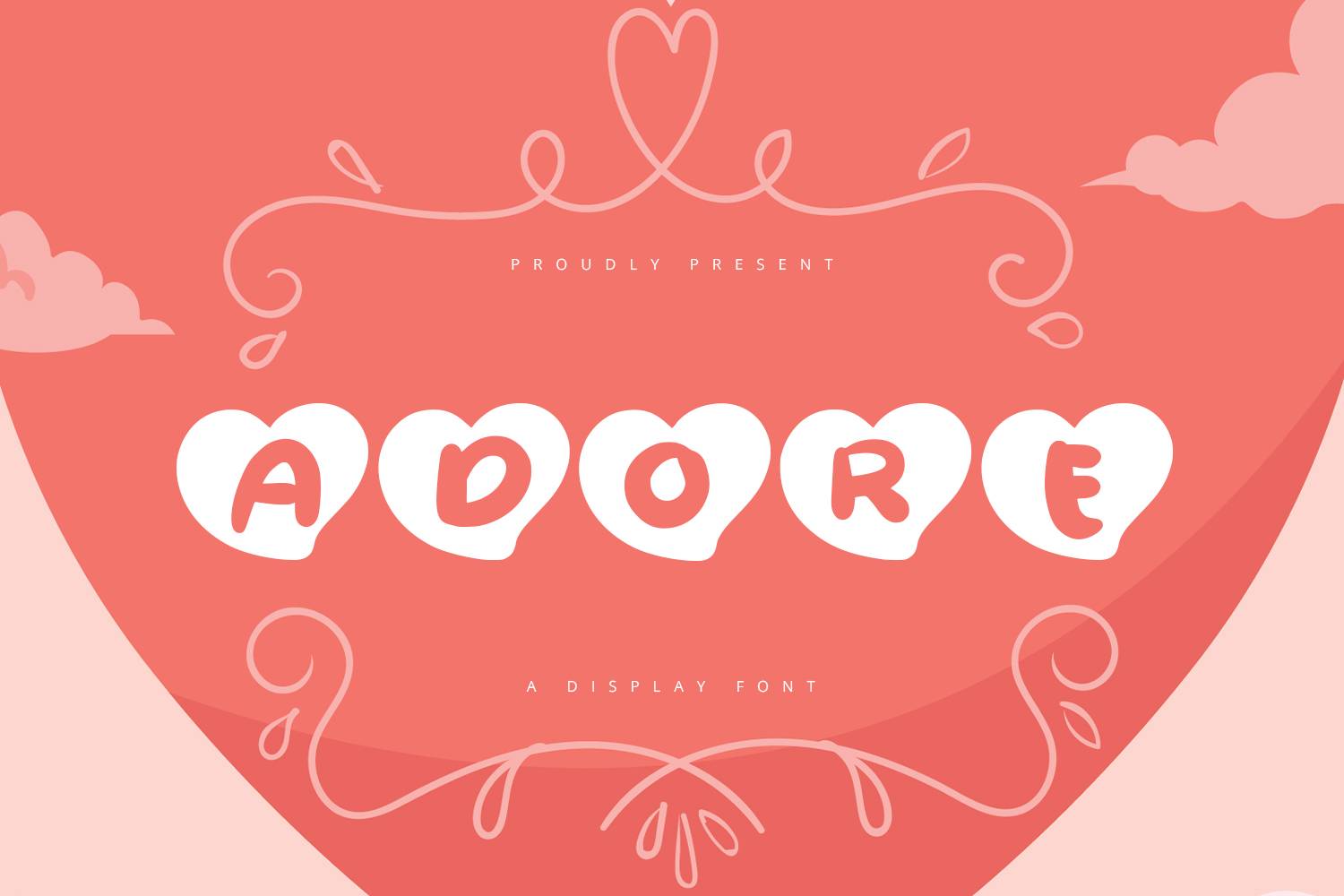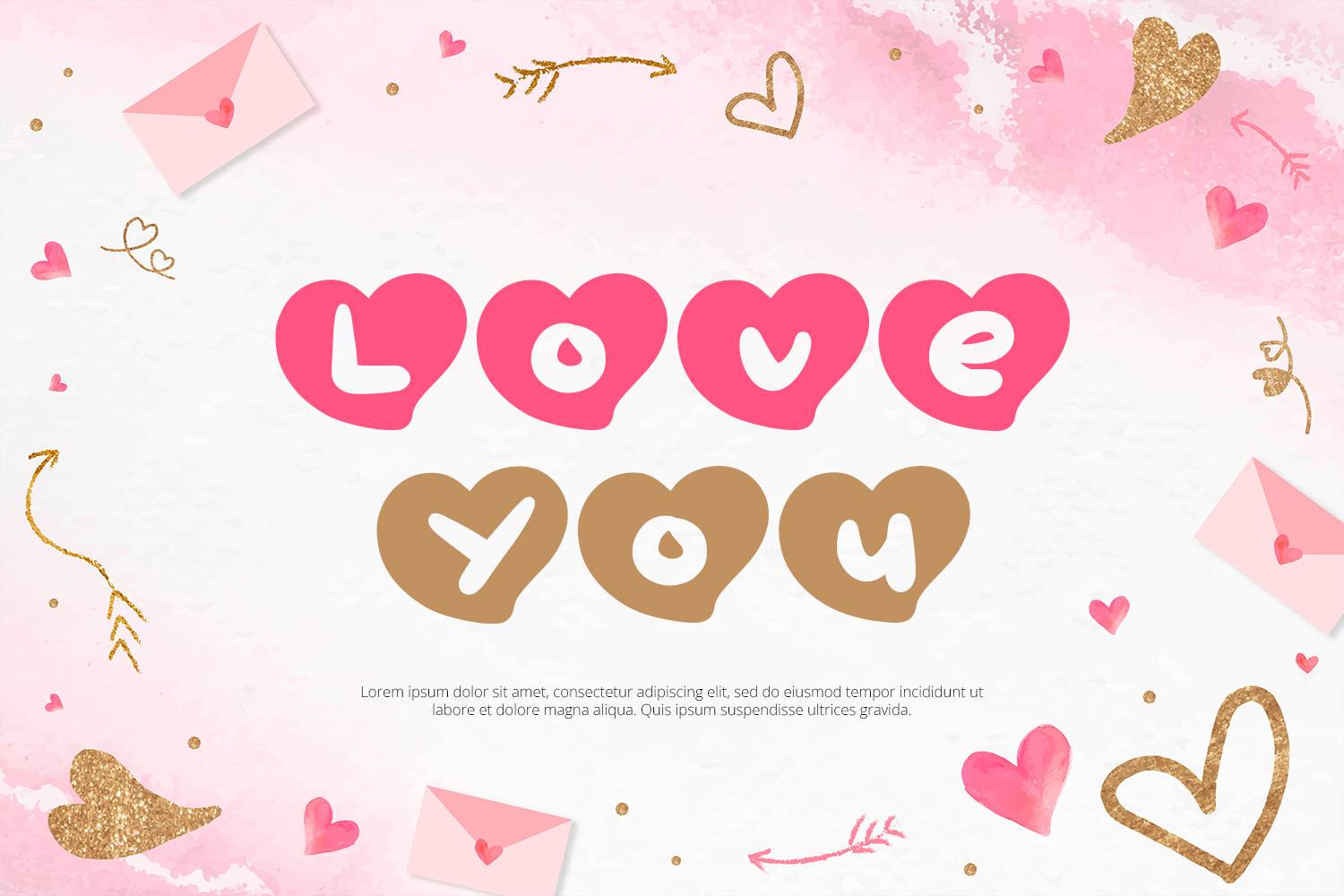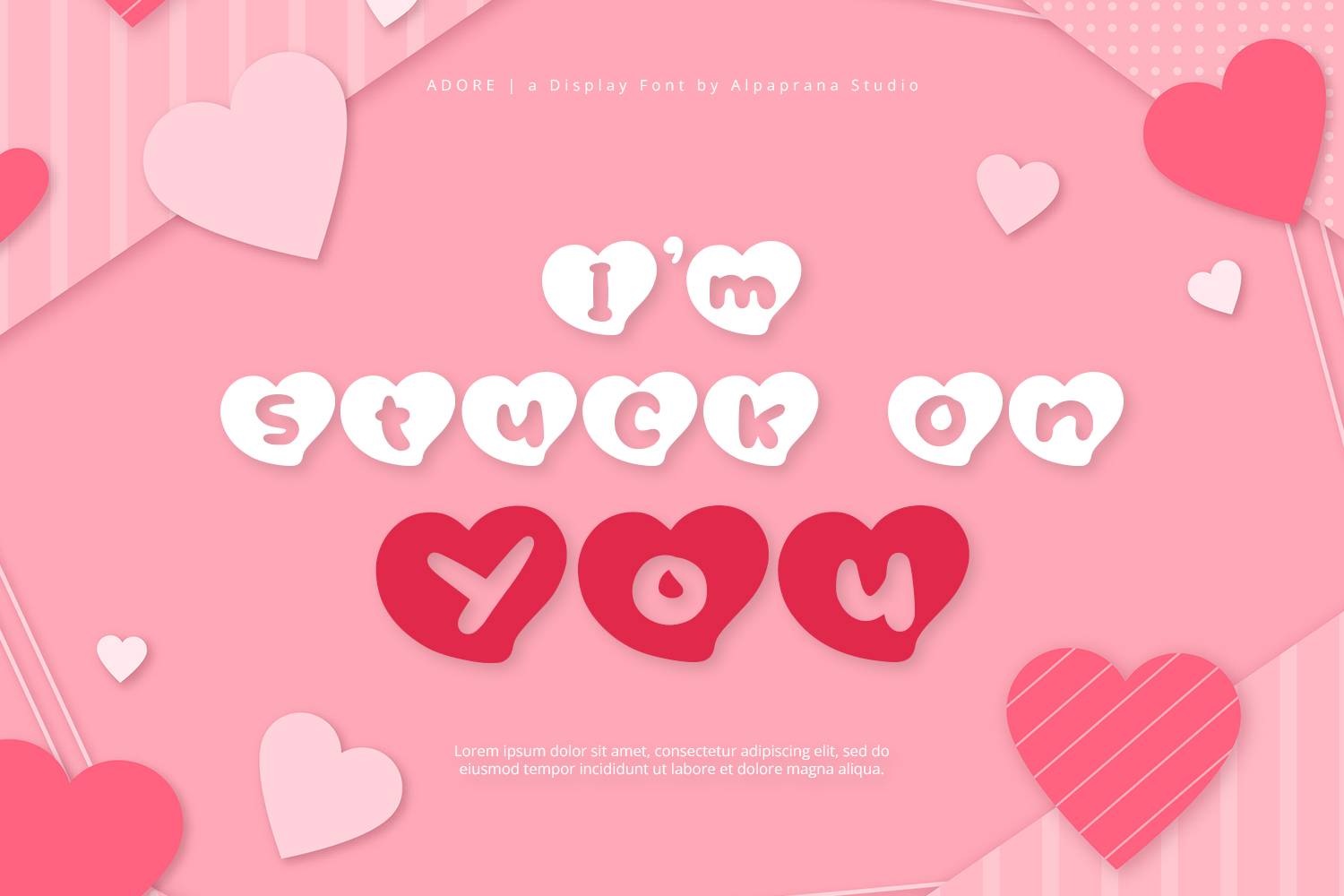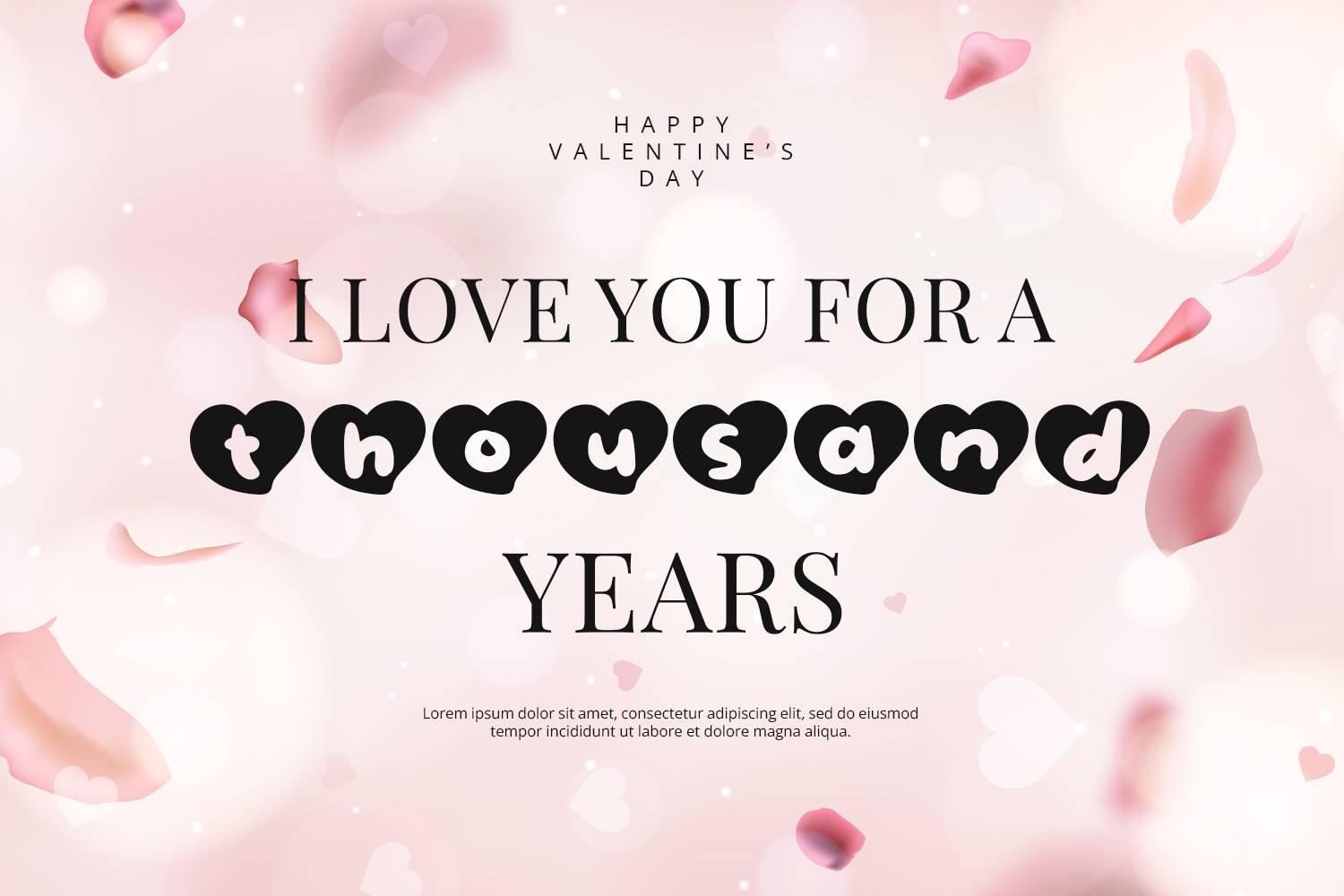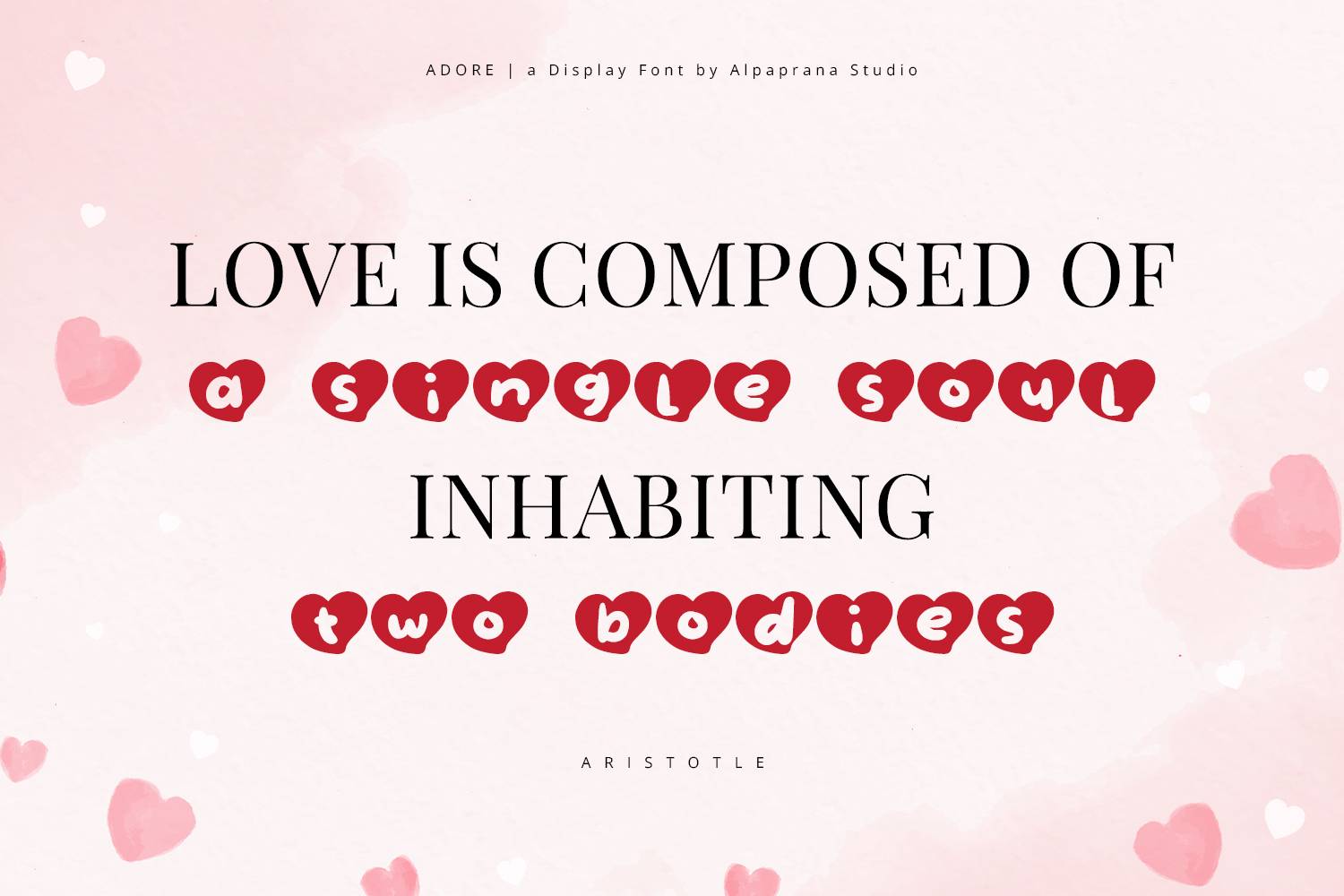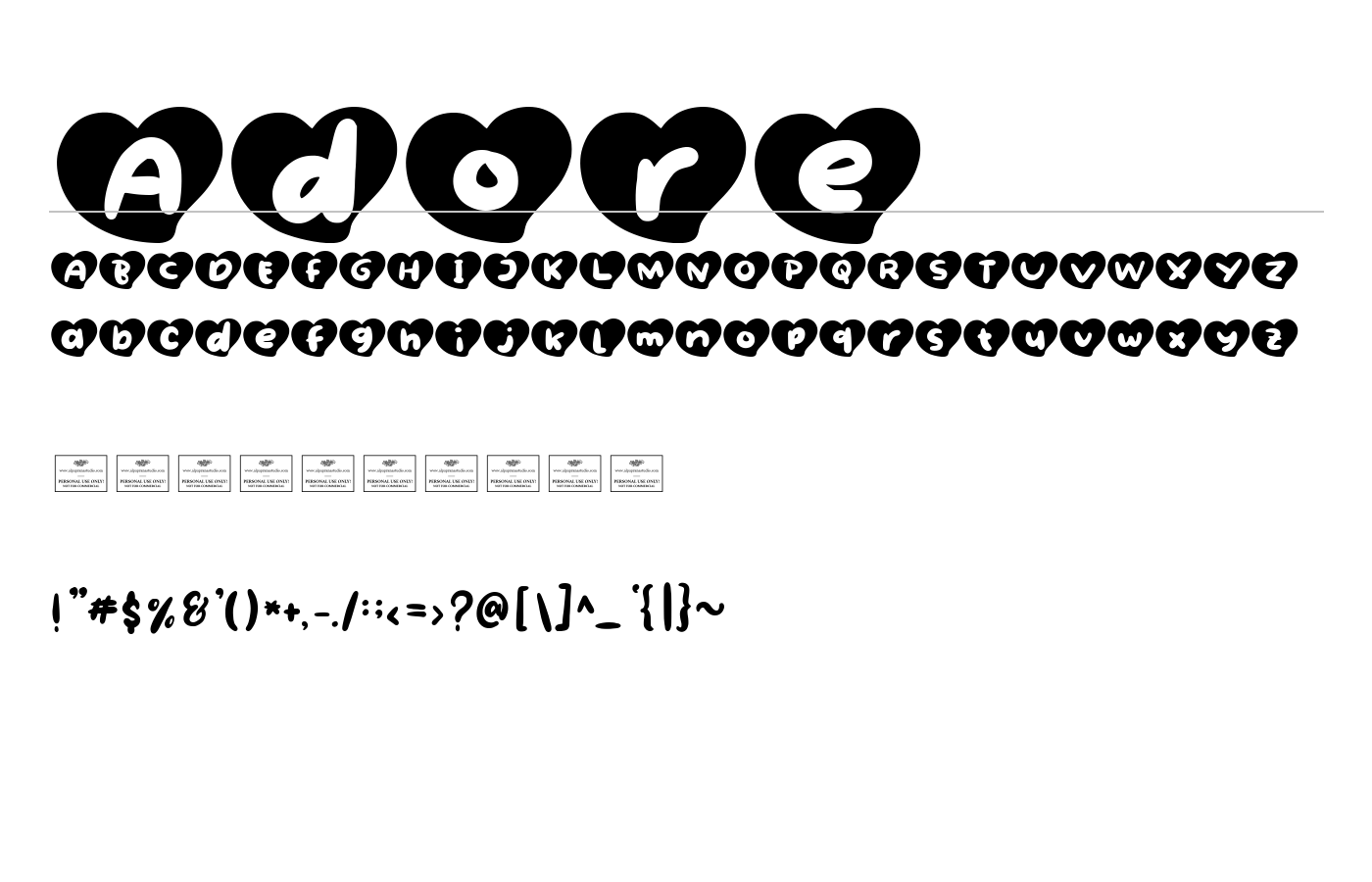
Adore Font is a playful and bold sans serif typeface featuring chunky, rounded letterforms accented with heart-shaped outlines. Its bubbly, informal style with uneven strokes and a handwritten feel makes it perfect for fun, youthful designs like children's products, greeting cards, or casual branding. This font works best in headlines or decorative text where its lively personality can shine without compromising readability.
Adore Font
About Adore Font